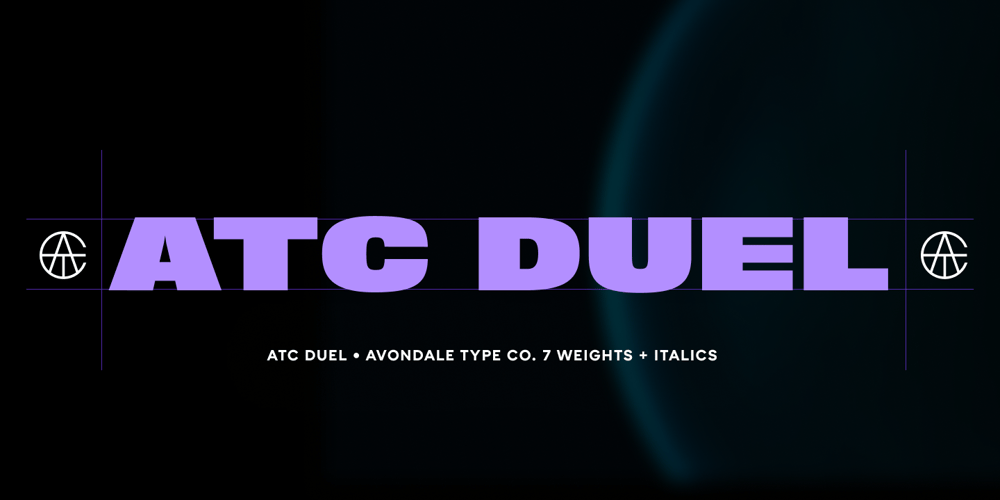
ATC Duel Font Family was designed by Jason Schwartz and published by Avondale Type Co.. ATC Duel contains 10 styles and family package options. ATC Duel is a strong, extra heavy multi-width sans-serif display font with sharp edges and an extended horizontal span, inspired by the automotive industry.Font contains 500+ glyphs, full alphabet, ligatures, numberals, accents and punctuation. ATC Duel was released in 2016.